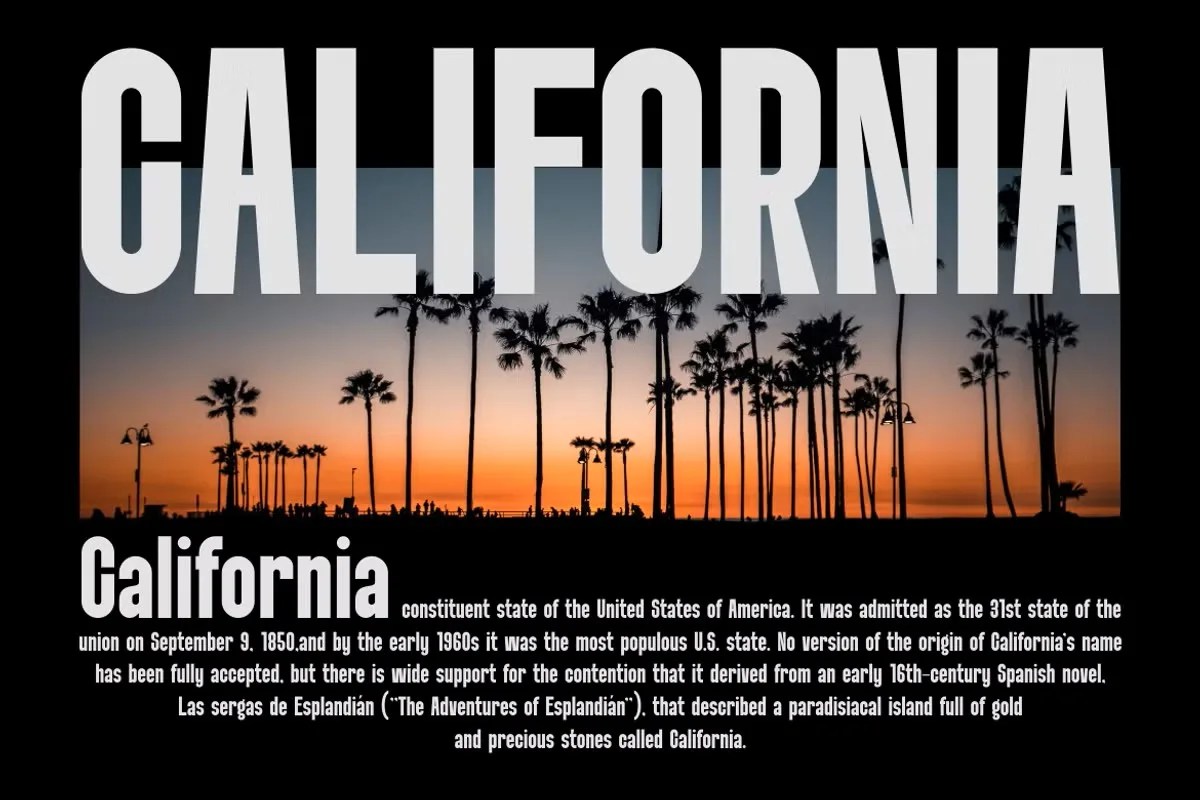
Falgard by Marvadesign. This is an incredibly strong sans serif font that brings a sense of power and stability to your creative work. The font features a bold, industrial character that feels both modern and timeless. It’s designed for headlines, titles, and logos that demand to be seen. Falgard is the perfect tool when your message needs to be clear, direct, and powerful, cutting through the noise with confidence.
This font is a perfect choice for designs that need to convey power and durability. Specifically, its industrial feel is great for automotive, tech, or construction branding. It can help you create a memorable and impactful logo that communicates trust. Furthermore, this strong sans serif font is excellent for modern poster design and event promotion. It ensures your main message stands out, even from a distance. Use it for athletic apparel or any personal project where you want to project confidence and strength.
• Bold and modern sans serif style
• Features a stable, industrial character
• Ideal for headlines, logos, and posters
• Adds a powerful and confident feel
Falgard